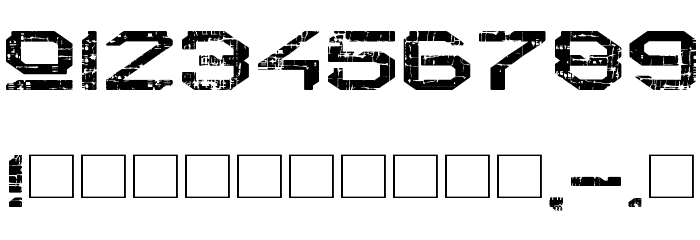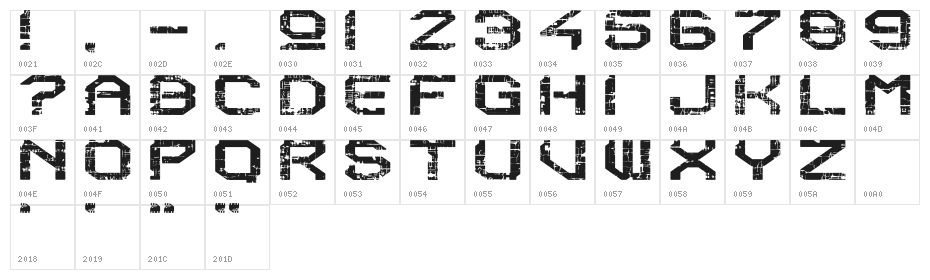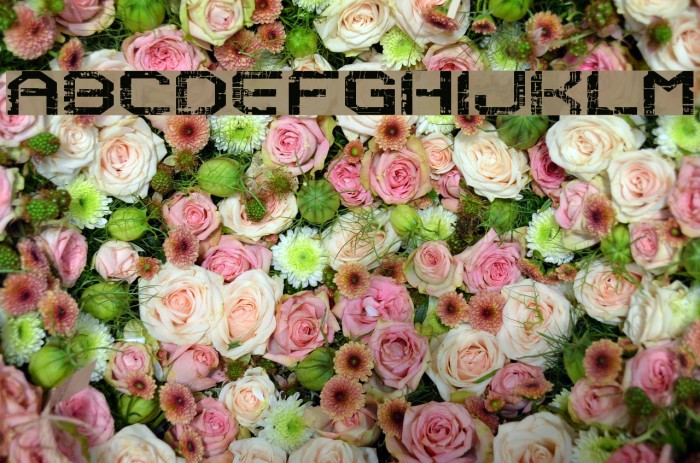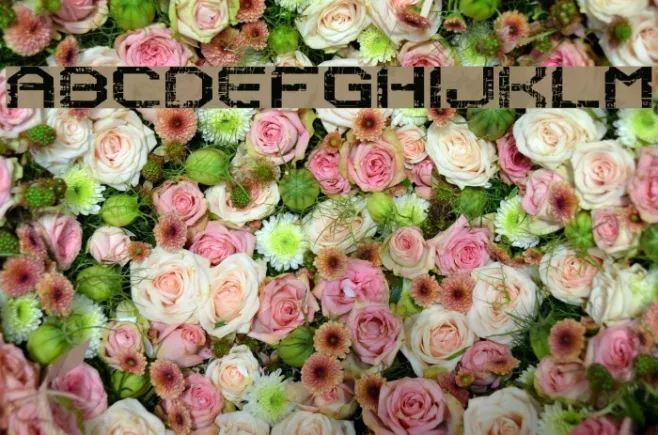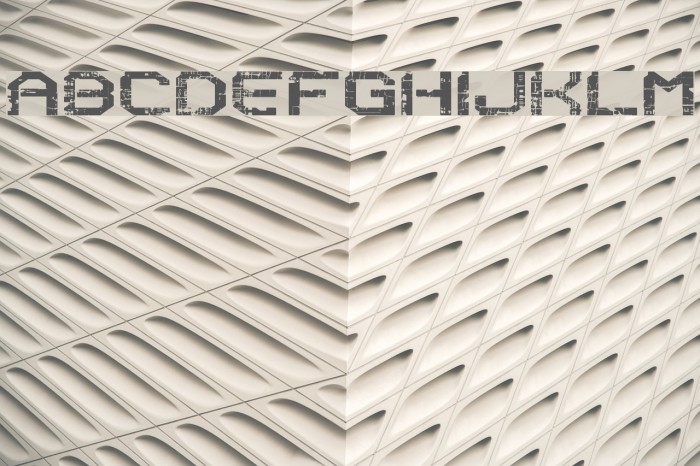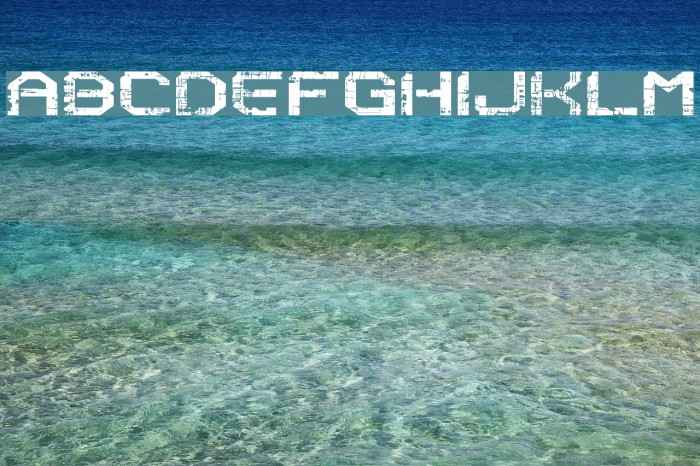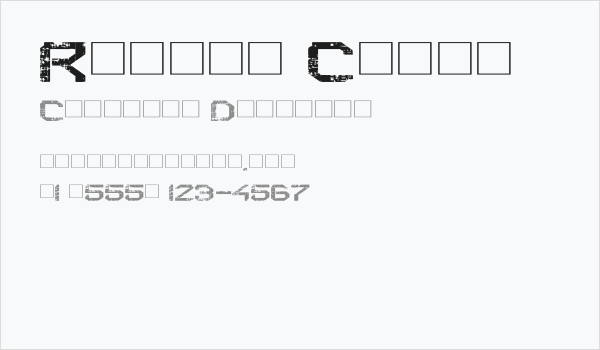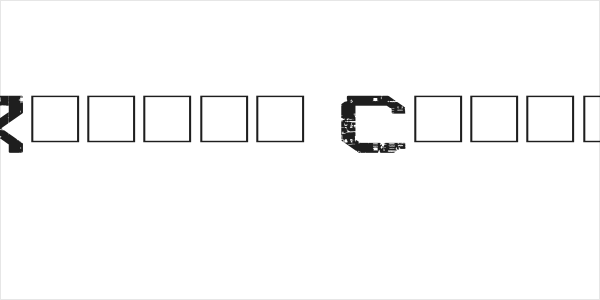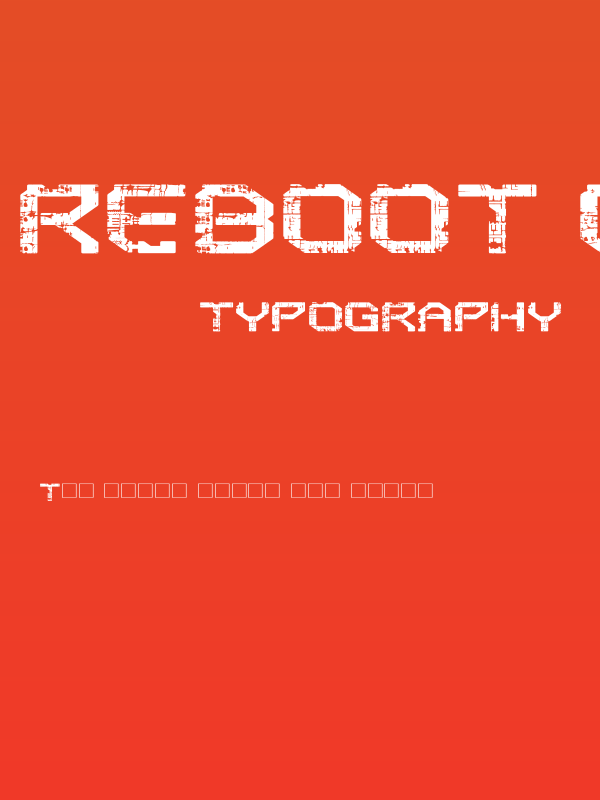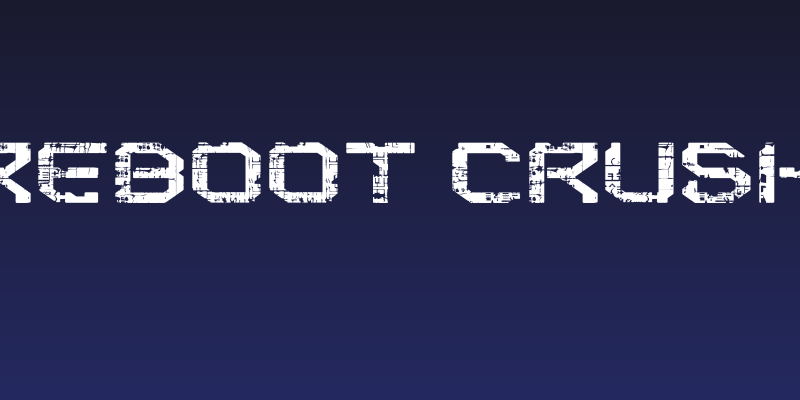
Reboot Crush Font
Reboot Crush Description
This font features a bold, distressed style with a digital, futuristic aesthetic. The characters are blocky and angular, with a textured appearance that suggests wear and tear, reminiscent of a glitch or digital decay. The uppercase letters are prominent, with a consistent height and width, creating a uniform look. The numbers follow the same style, maintaining the distressed, digital theme. This font is ideal for projects that require a modern, edgy feel, such as tech-related designs, video game graphics, or sci-fi themed posters. Its unique appearance makes it stand out, capturing attention with its bold and gritty style.
| Proposed Projects | Tech-related designs, video game graphics, sci-fi themed posters. |